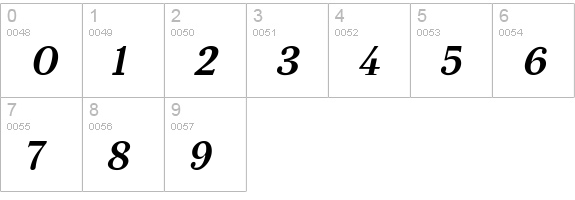
Serif6 Beta Bold Italic Font Details
Serif6 Beta Bold Italic is a strong, high-contrast, italic variant in the Serif6 typeface family \xE2\x80\x94 well suited to headlines, attention-grabbing titles, and strong calls-to-action.
Serif6 Beta Bold Italic font is a striking and elegant typeface that exudes sophistication and modernity. Its bold and italic design adds a touch of flair and uniqueness to any project, making it perfect for headings, titles, and other attention-grabbing text. The serif style of the font gives it a timeless and classic look, while the beta version offers a fresh and contemporary twist. Best of all, Serif6 Beta Bold Italic font is available for free download at FontsMarket.com. Whether you're a designer looking to experiment with a new font or a business owner seeking a stylish typographic solution, this font is a great choice. Don't miss out on the opportunity to enhance your projects with this versatile and eye-catching typeface - download Serif6 Beta Bold Italic font today!